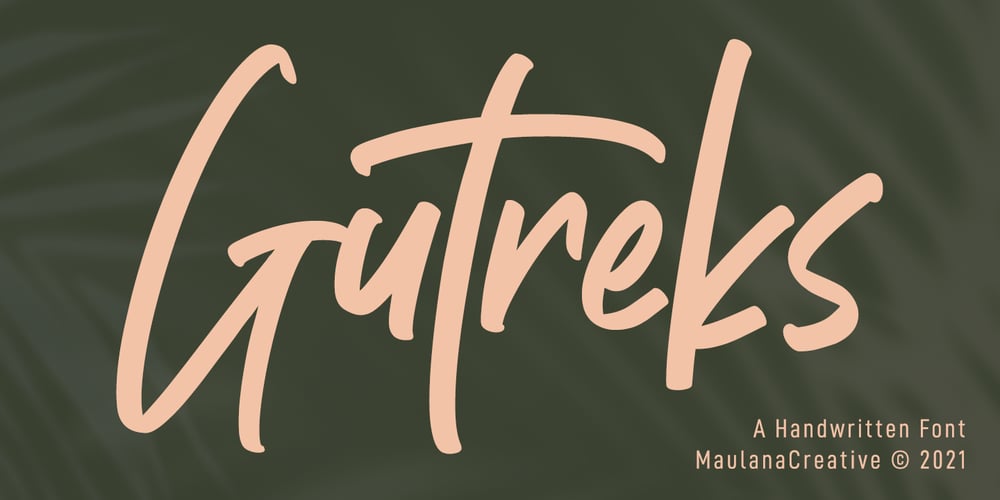
Gutreks Font Family was designed by Gilang Maulana and published by Maulana Creative. Gutreks contains 1 styles and family package options. Gutreks is a handwritten feel font. With marker stroke, italic and fun character with a bit of ligatures. To give you an extra creative work. Gutreks font support multilingual more than 100+ language. This font is good for logo design, Social media, Movie Titles, Books Titles, a short text even a long text letter and good for your secondary text font with sans or serif. Make a stunning work with Gutreks font. Cheers, MaulanaCreative